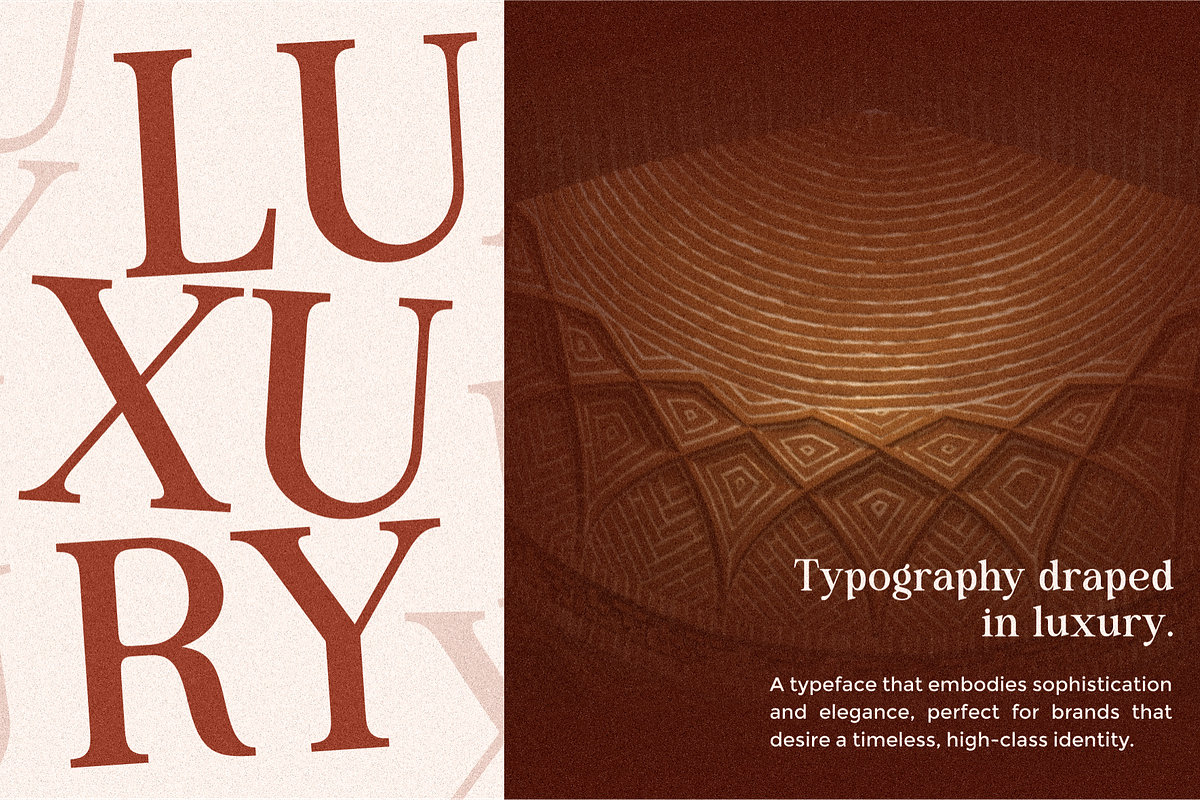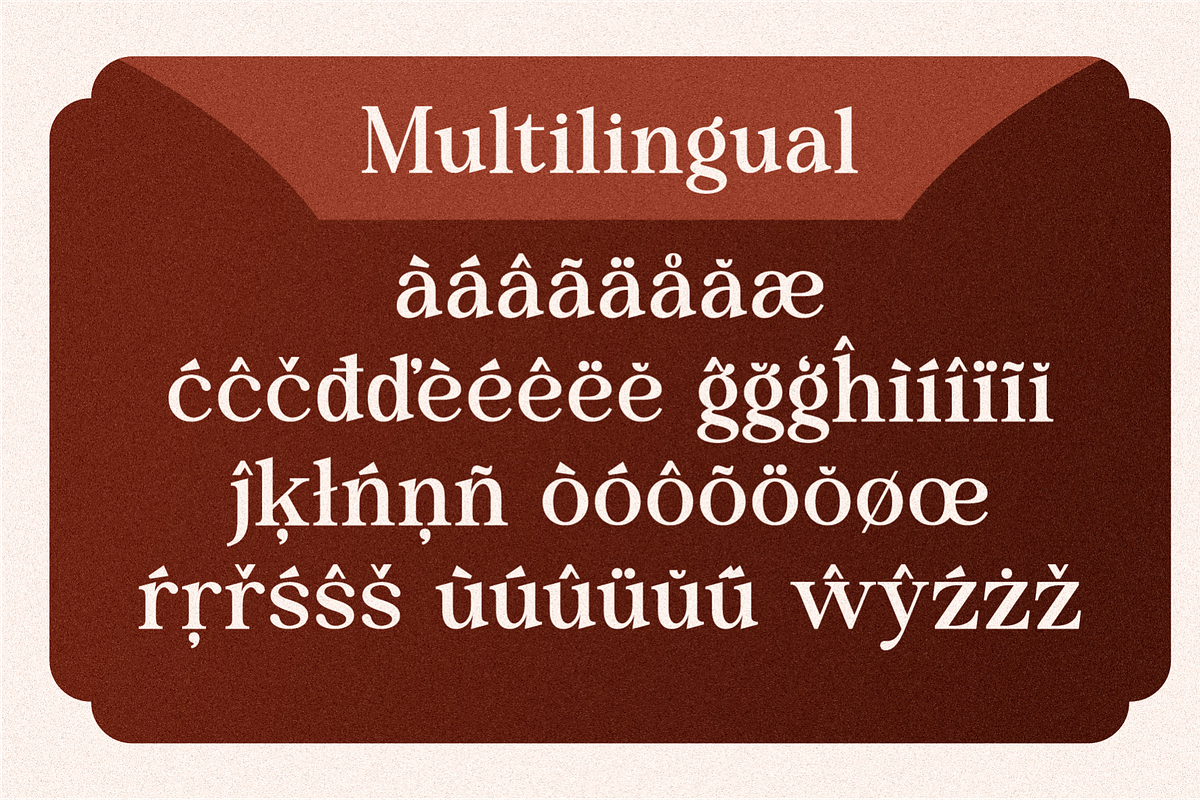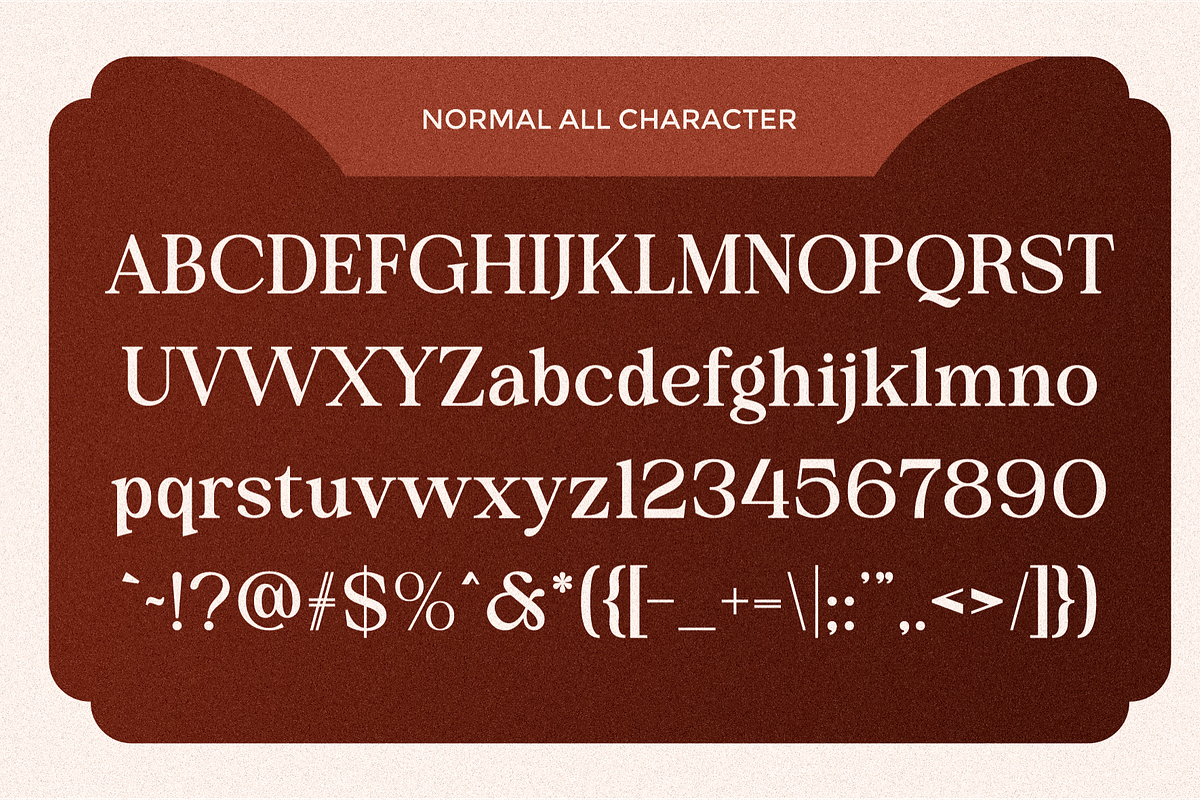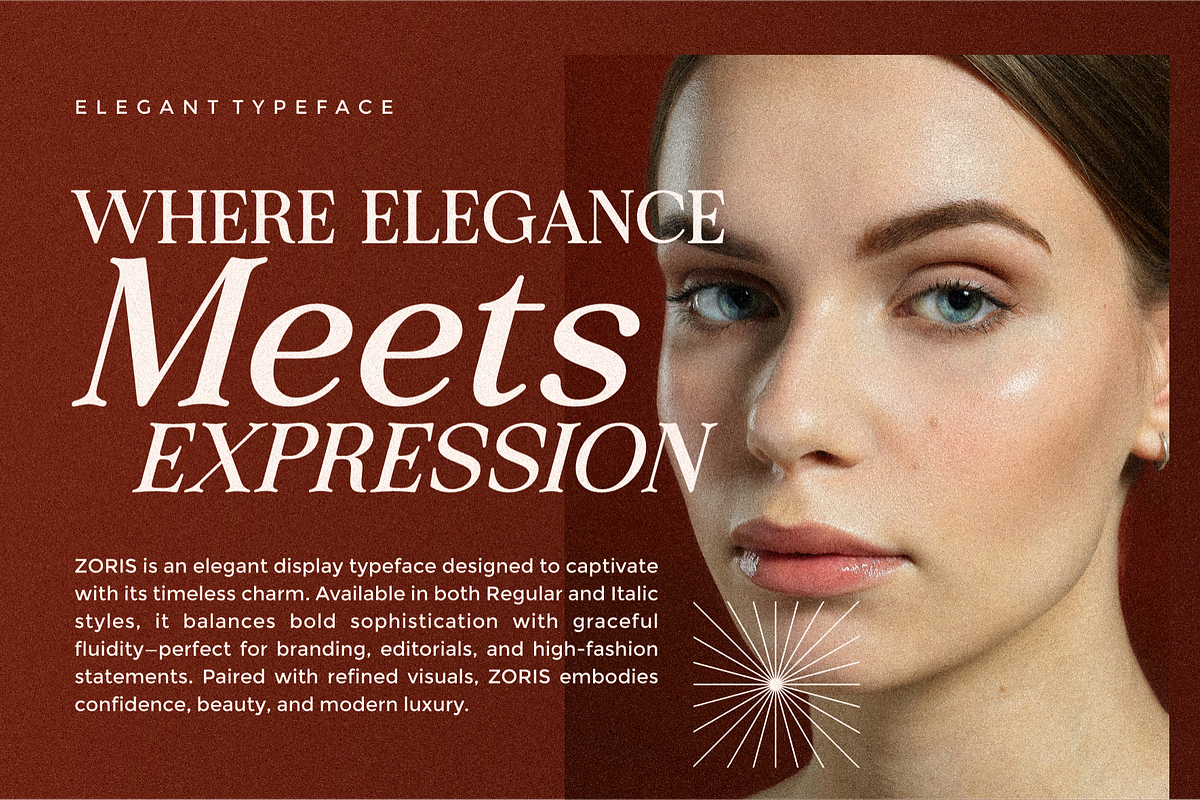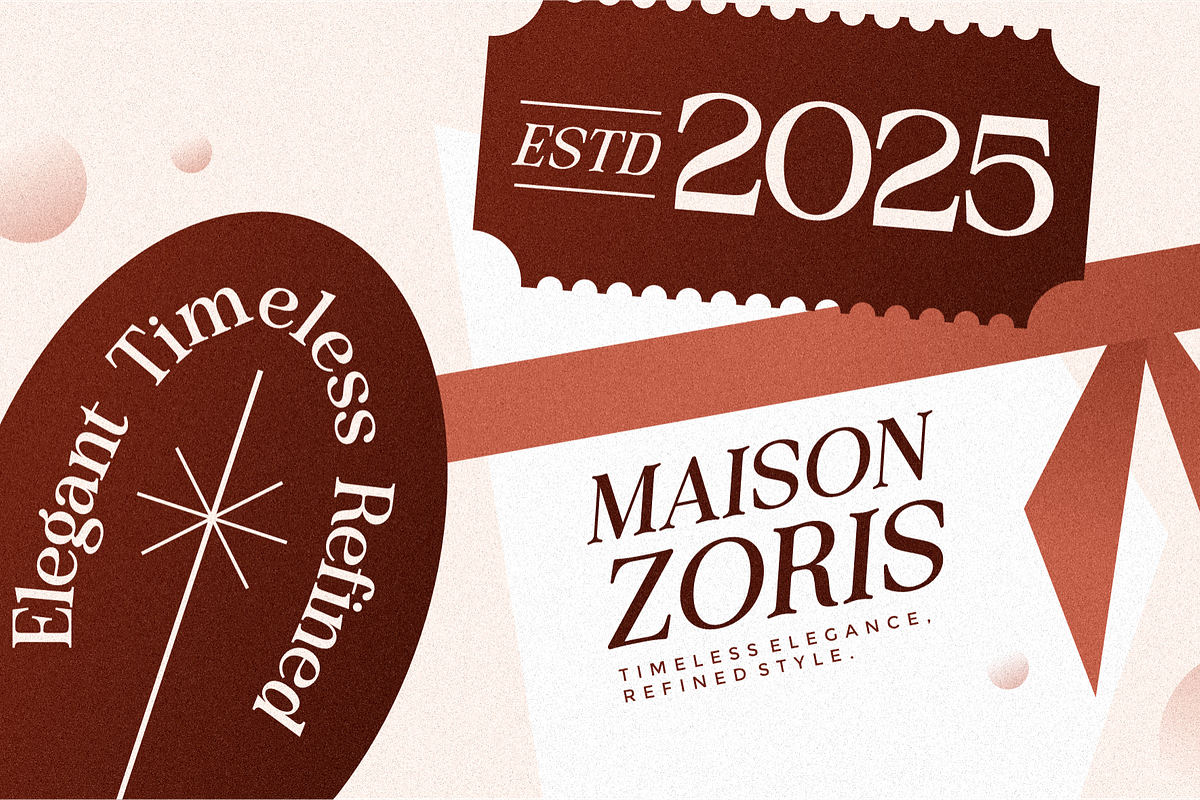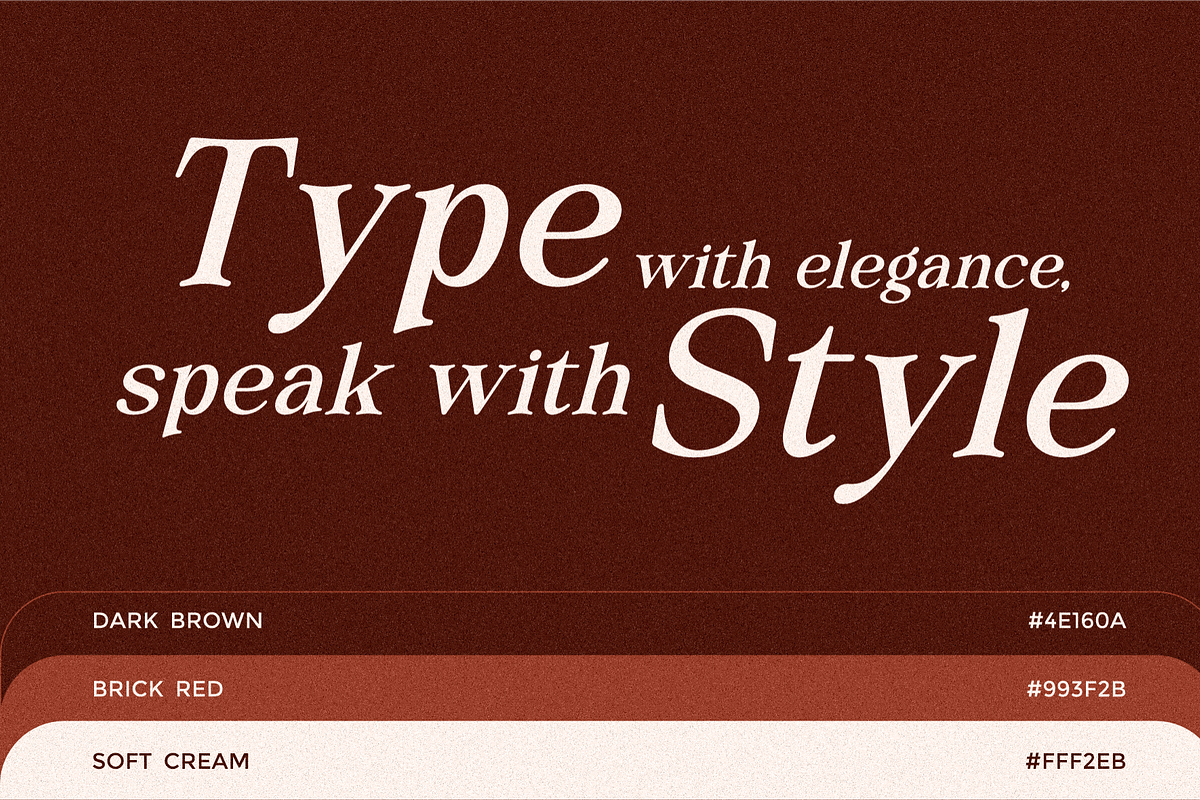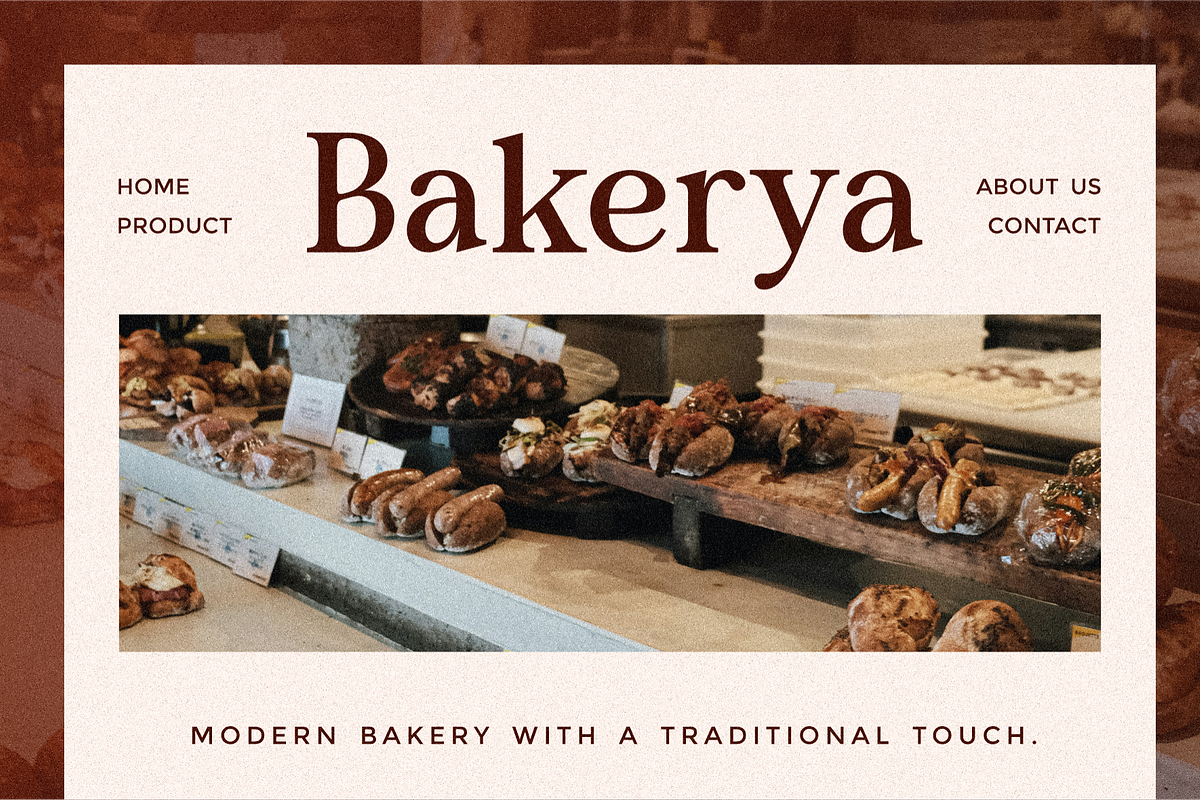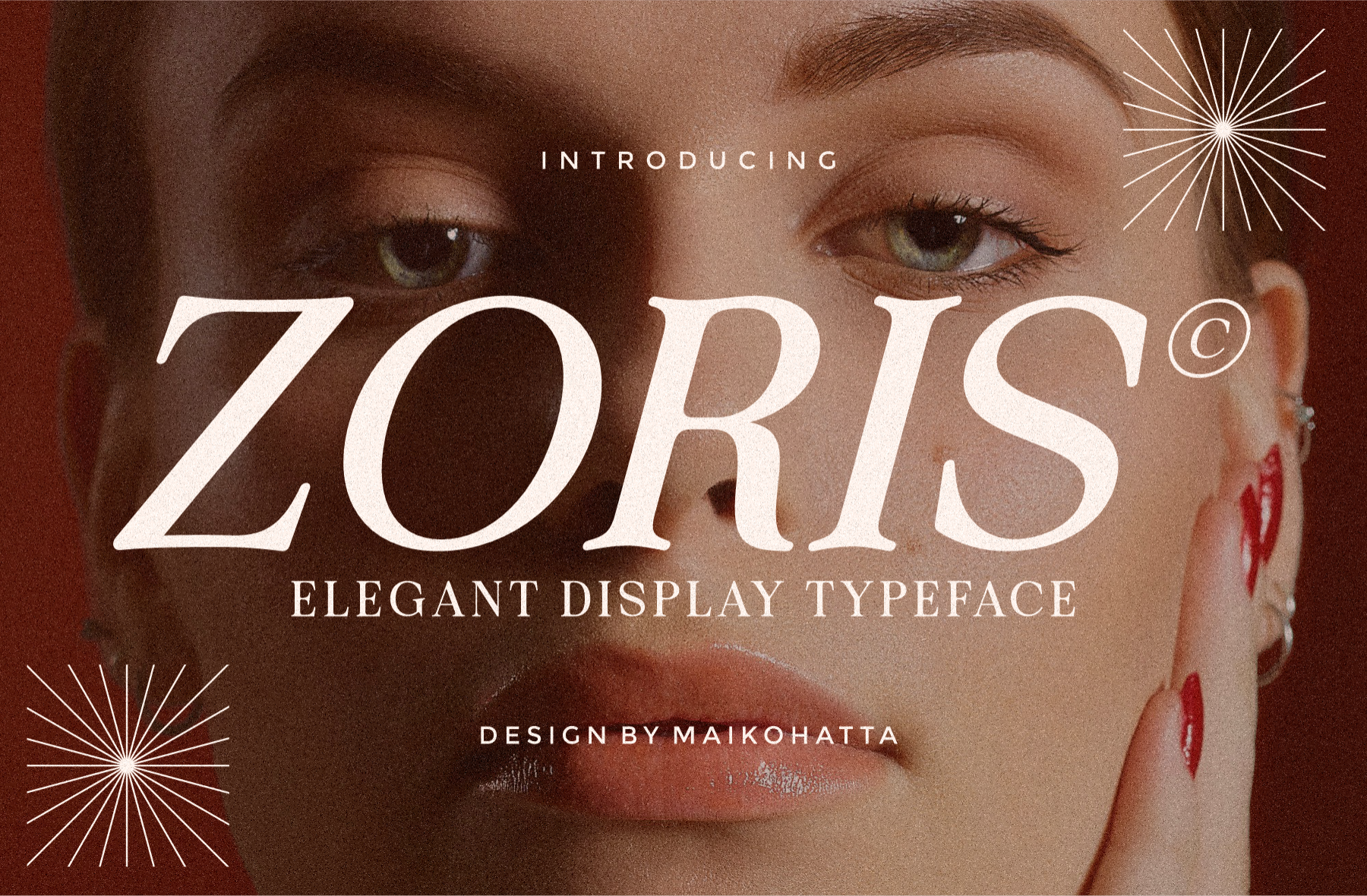
Zoris - Elegant Display Typeface
Zoris – Elegant Display Typeface
Zoris is a refined and sophisticated serif display typeface designed to bring elegance and timeless charm to your projects. With its graceful curves, high contrast strokes, and stylish details, Zoris is perfect for creating striking headlines, luxury branding, fashion editorials, invitations, and premium packaging.
This typeface blends classic beauty with a modern aesthetic, making it versatile for both contemporary and traditional design needs. Whether you’re designing logos, wedding stationery, magazine layouts, or upscale product labels, Zoris will elevate your work with its distinctive and polished character.
Ideal For: Luxury branding & identity Fashion magazines & editorials Wedding invitations & stationery Premium product packaging Modern advertising & posters
Uppercase & lowercase letters
Ligature